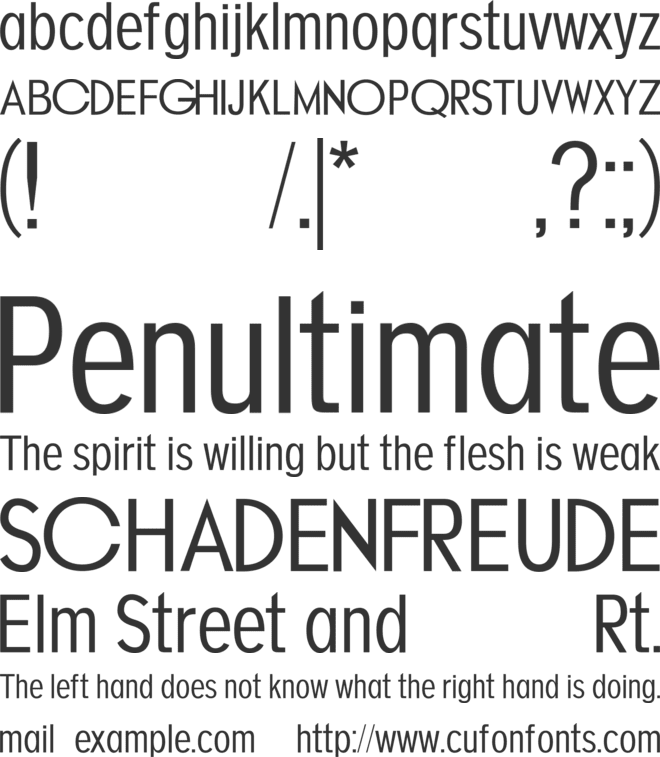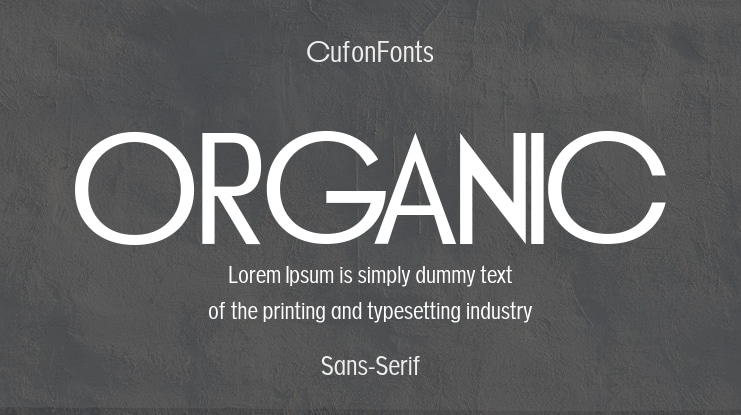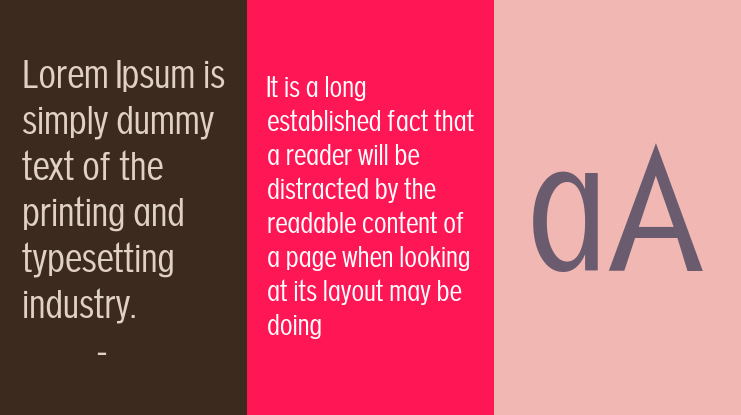
ORGANIC Font Family
Organic Geometric Sans is a bold sans serif with multilingual support—ideal for tech branding, editorial layouts, and minimalist packaging.